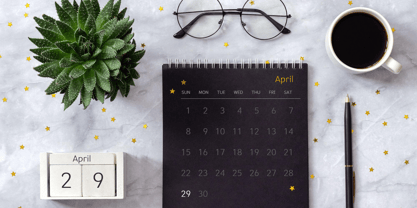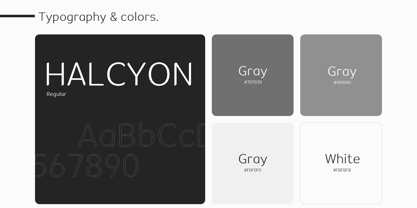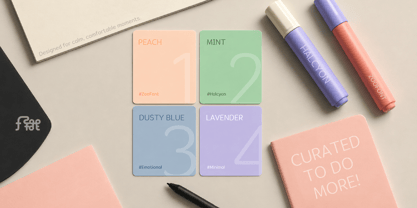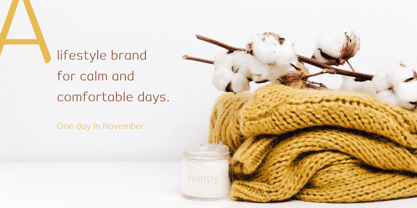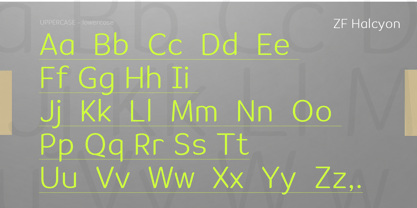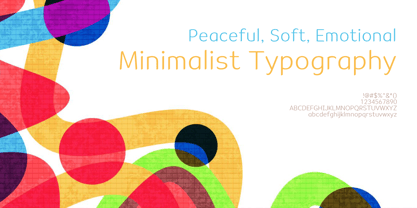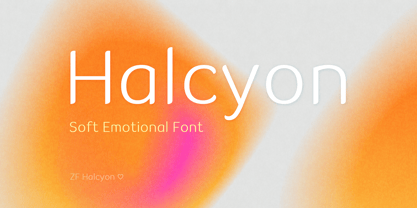
ZFhalcyon
ZF Halcyon is a minimal sans-serif typeface that embodies serenity and modern simplicity in its most natural form. With smooth, stable stroke flow and generous inner spacing, this typeface offers exceptional legibility, ensuring comfort during extended reading sessions.
ZF Halcyon balances subtle sophistication with a calm mood, making it ideal for various applications, from emotional lifestyle content to clean, modern UI environments.
Key Features & Ideal Uses
Soft Structure & Harmonious Balance
Carefully crafted letterforms and refined spacing create a clean, stable, and effortlessly soft visual rhythm across both print and screen.
Versatile for Everyday Design
Perfect for minimal branding, mobile UI design, digital planners, emotional stationery, social media content, and lifestyle-focused visuals.
Timeless & Comfortable Atmosphere
Designed to evoke a peaceful, cozy feeling that remains visually pleasing over time without becoming overwhelming.